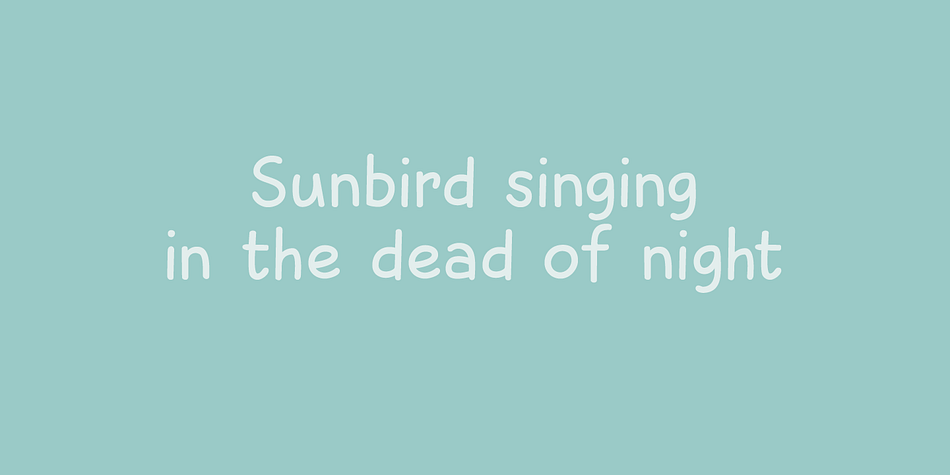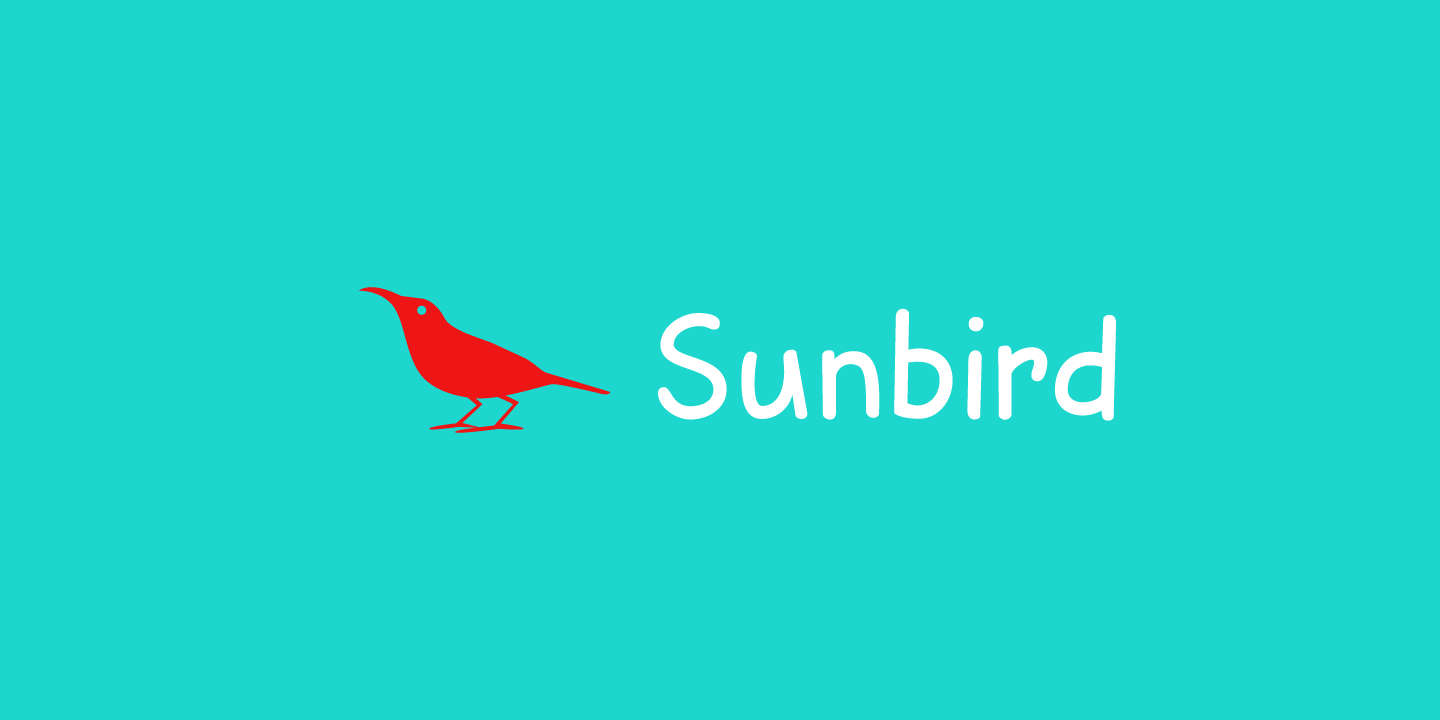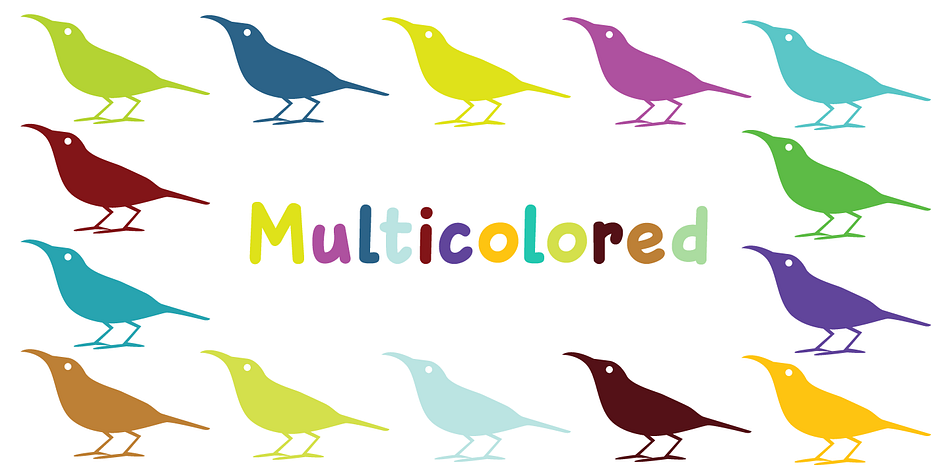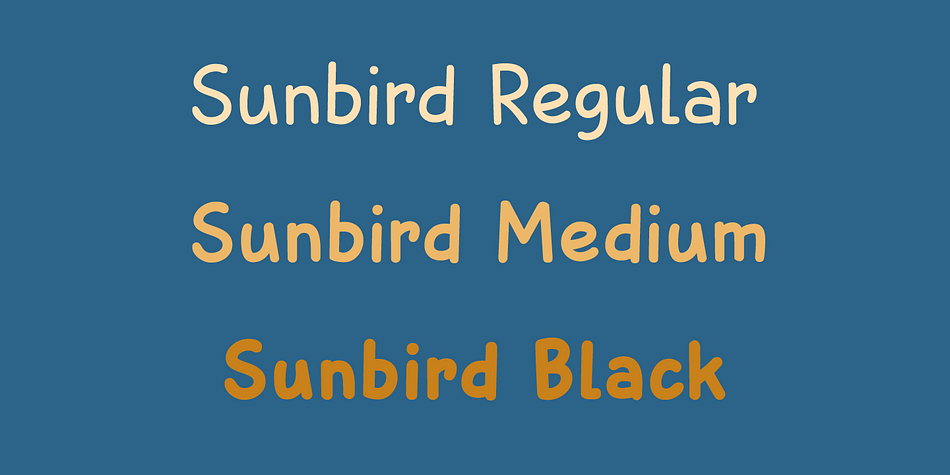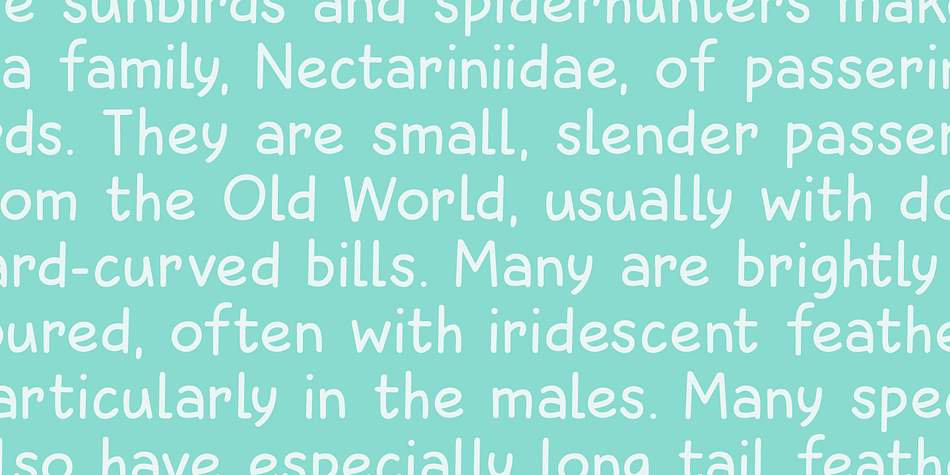
Designed by David Kerkhoff, Sunbird is a comic font family. This typeface has six styles and was published by Hanoded.
Sunbird is a happy, rounded, cartoonish font family. It comes in three weights: regular, medium and black - each with its very own Italic style. Sunbird is quite versatile: it looks good as a display font, but setting a (short) text in it could work as well. Its versatility makes Sunbird an ideal font for product packaging and posters.